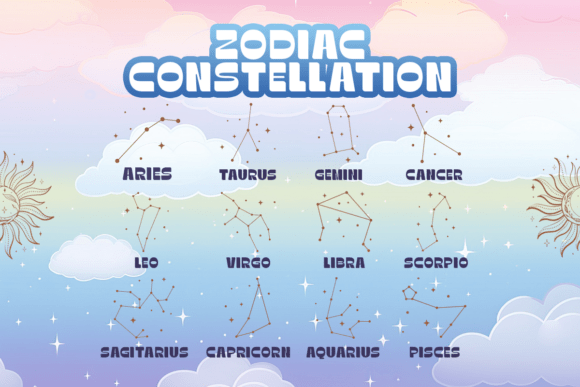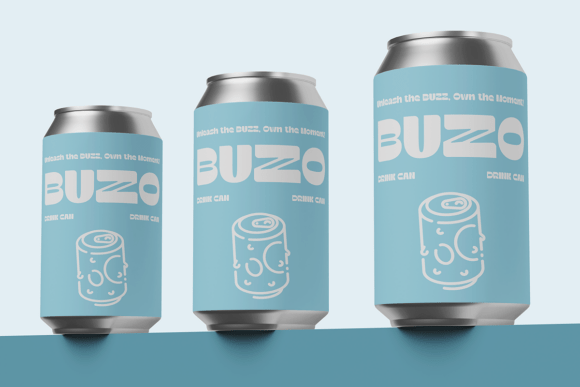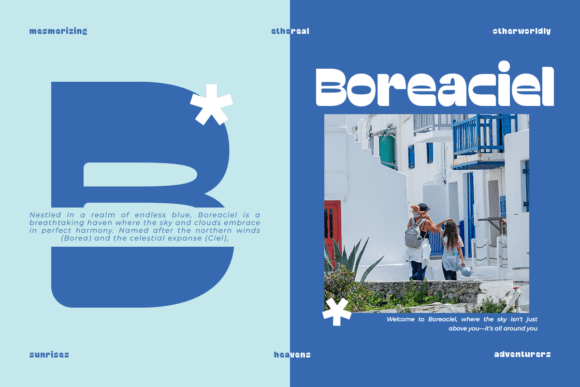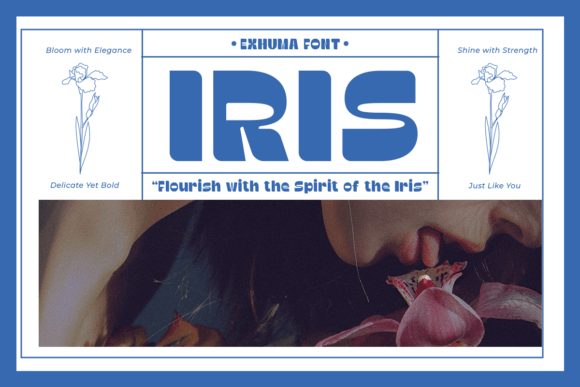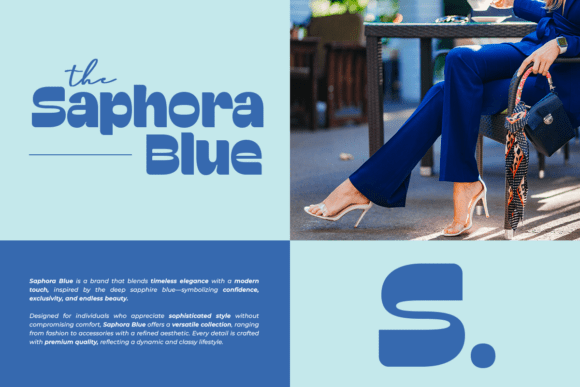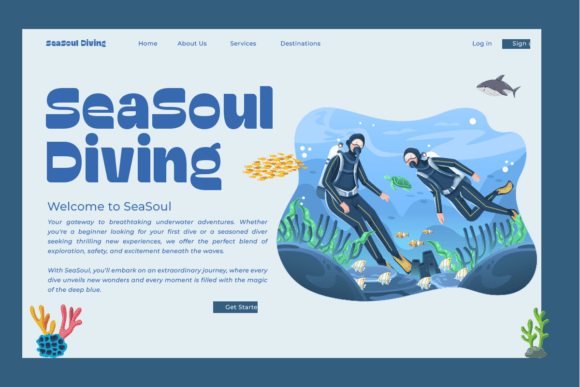
Introduction to Exhuma Font
Have you ever stumbled upon a font that instantly sparks a wave of creative ideas? For me, that moment happened when I discovered the Exhuma Font. Its unique blend of modern aesthetics and playful energy was the perfect catalyst for a fresh design project. As a graphic designer, I’m always on the lookout for high-quality fonts that can elevate my work and help me stand out from the crowd.
The Exhuma Font is more than just a pretty face – it’s a versatile design resource that can be used for a wide range of creative projects, from branding and logos to social media graphics and merchandise. Its smooth curves and thick strokes make it perfect for designs that need a soft yet confident character. Whether you’re working on a project with a transparent background or a high-quality print design, the Exhuma Font is sure to bring a modern and professional touch to your visuals.
Key Features of Exhuma Font
- High-quality design resource ideal for creative projects, including logos, branding, and digital art.
- Unique, modern design aesthetic that can add a touch of sophistication to any creative project.
Honest Review: Exhuma Font
I recently stumbled upon the Exhuma Font, and I must say, it’s a game-changer for any creative project. With a transparent background, this font is perfect for designers looking to add a touch of elegance to their designs.
- High-quality design that’s both modern and sleek ✨
- Wide range of font styles and weights to choose from, ensuring versatility in design ✨
- May not be suitable for designs requiring bold, condensed fonts ⚠️
- Some users may find the font’s nuances challenging to work with ⚠️
Overall, the Exhuma Font is an excellent addition to any designer’s toolkit. Its high quality, versatility, and free download make it an attractive option for creative projects. While it may have some limitations, the benefits far outweigh the drawbacks, making it a worthwhile design resource to explore.
The Exhuma Font is ideal for a wide range of creative projects, including logos, business cards, and marketing materials. Its high-quality design and transparent background make it perfect for use on complex backgrounds and layered designs.